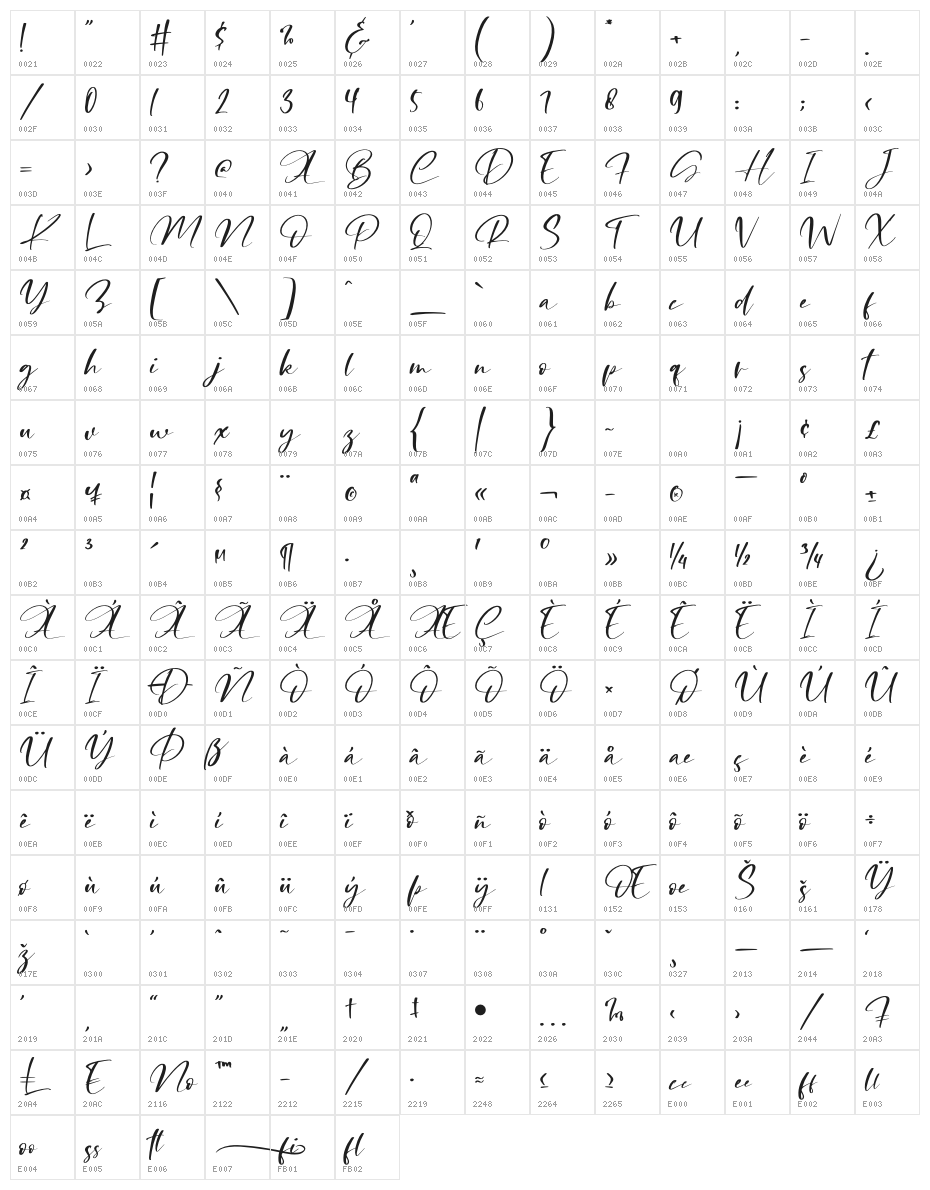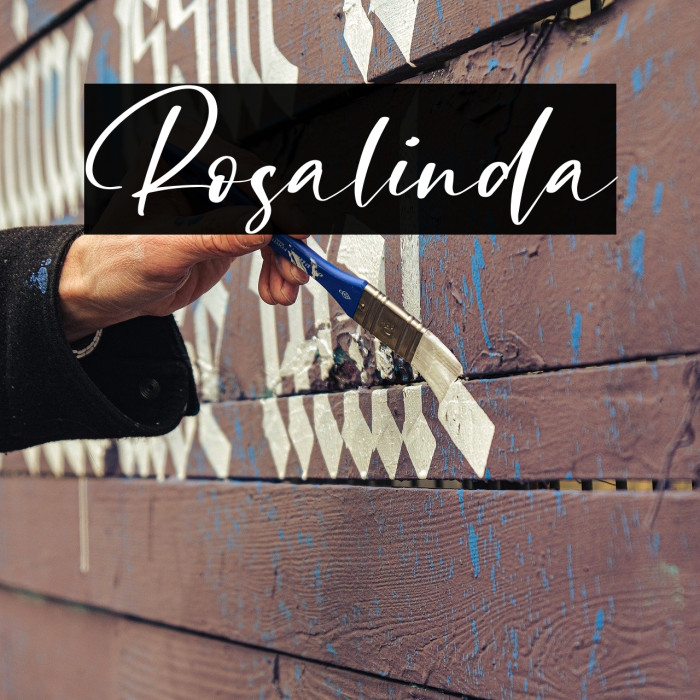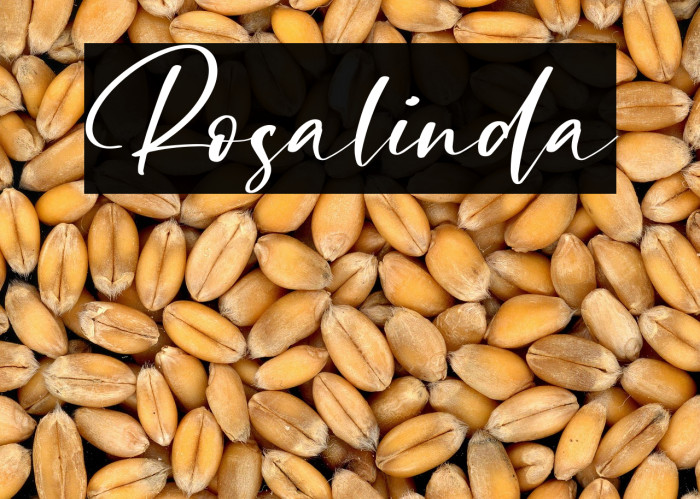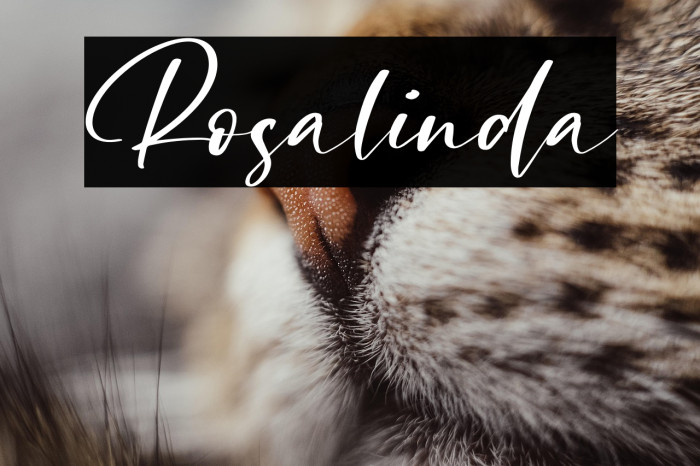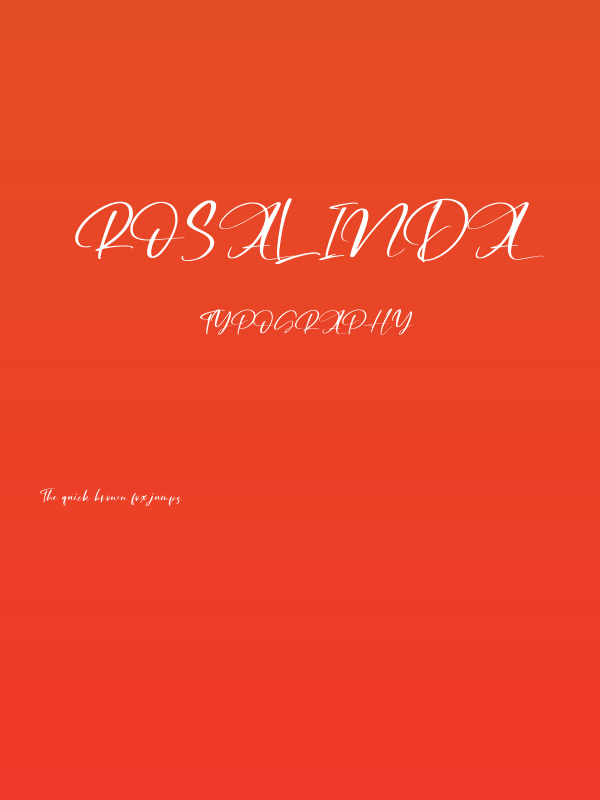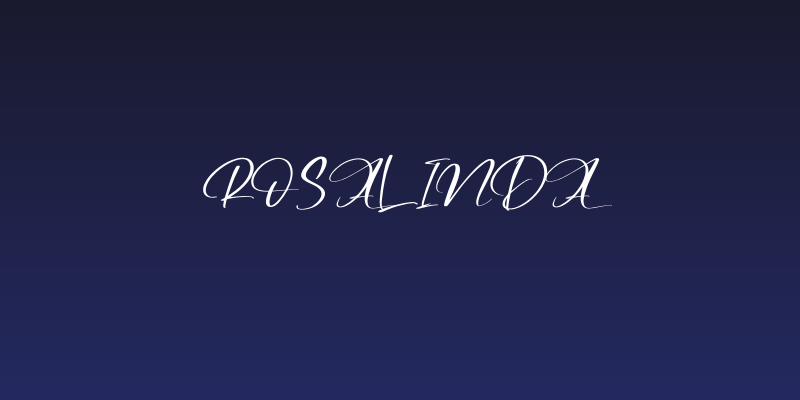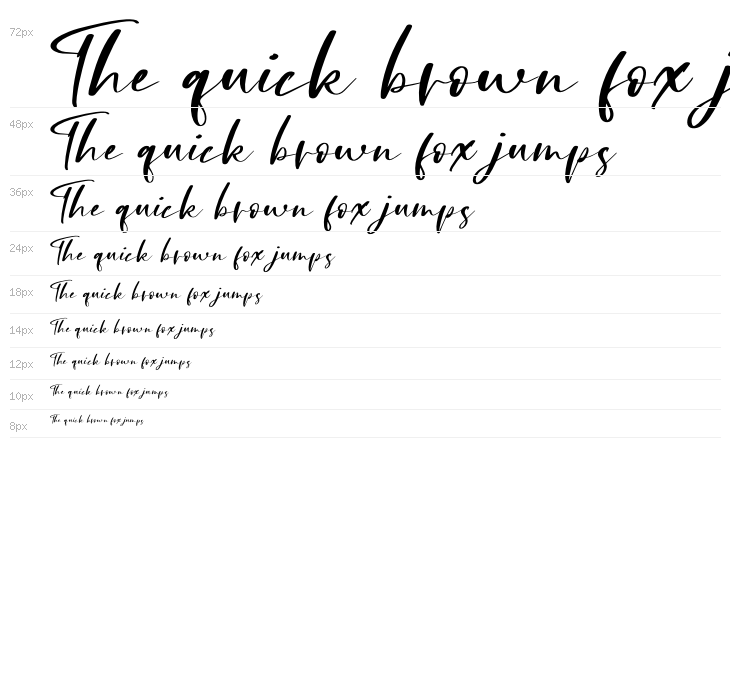
Rosalinda Font
Rosalinda Description
This elegant script font features a flowing, cursive style with a modern touch. The uppercase letters are characterized by their sweeping curves and graceful loops, while the lowercase letters maintain a consistent fluidity that enhances readability. The numerals and special characters are designed with the same attention to detail, ensuring a cohesive look across all text. The font's strokes vary in thickness, adding a dynamic contrast that gives it a lively and sophisticated appearance. Ideal for projects that require a personal and artistic touch, this font is perfect for invitations, branding, and decorative purposes.
| Proposed Projects | Ideal for wedding invitations, branding, greeting cards, and decorative signage. |